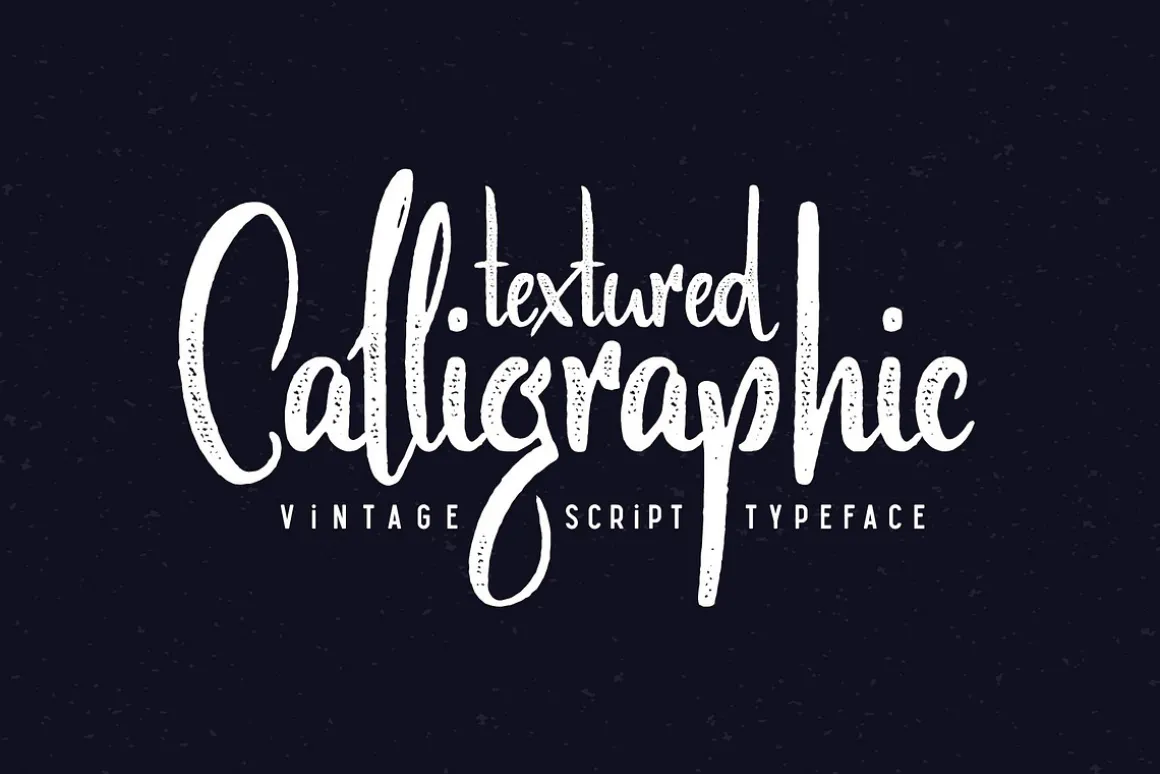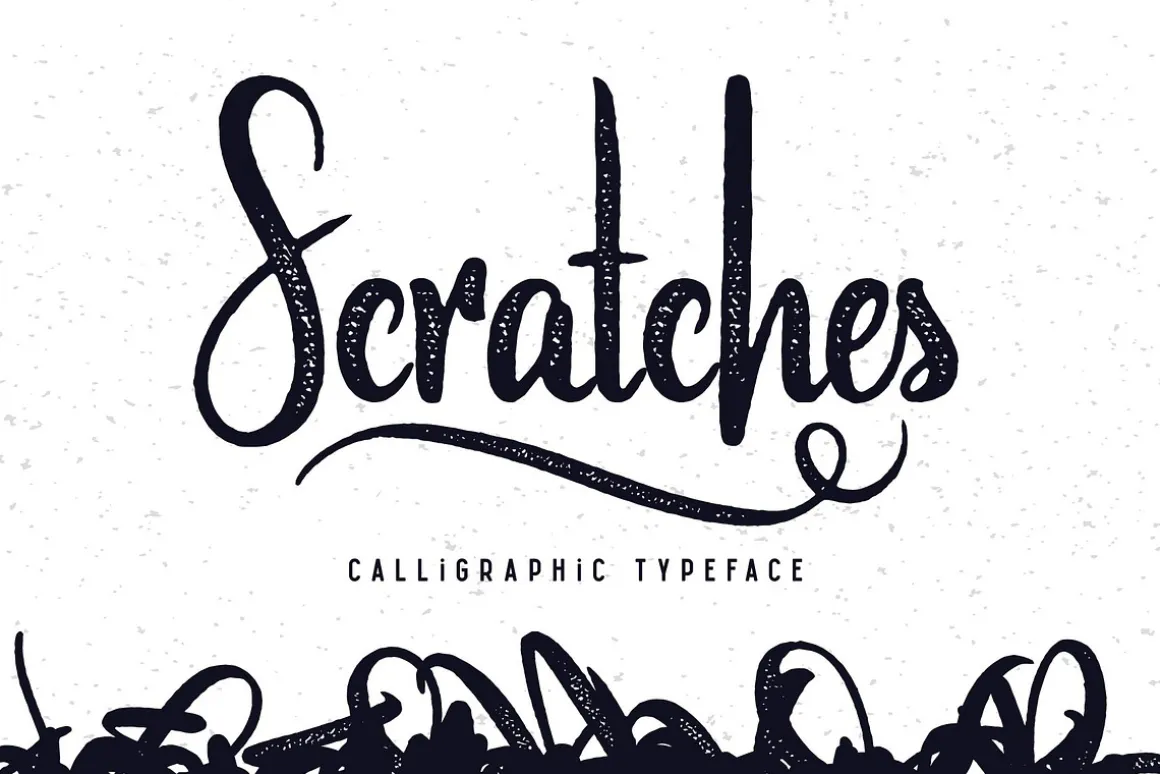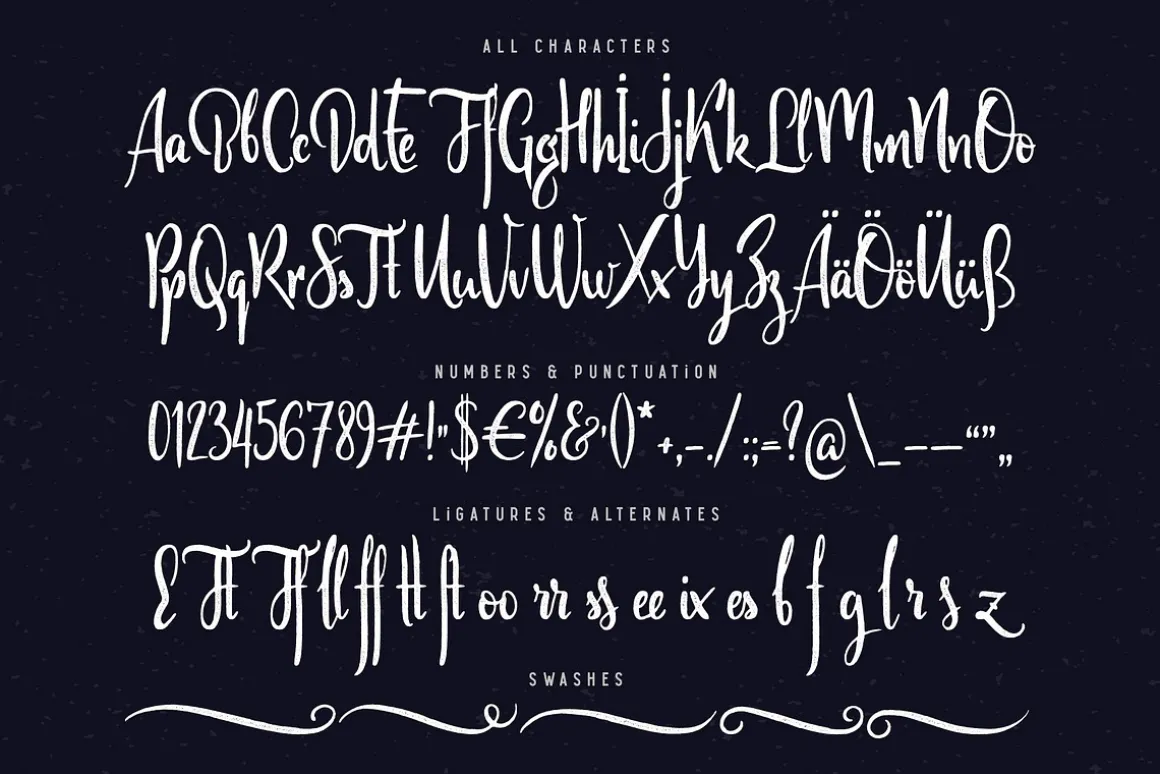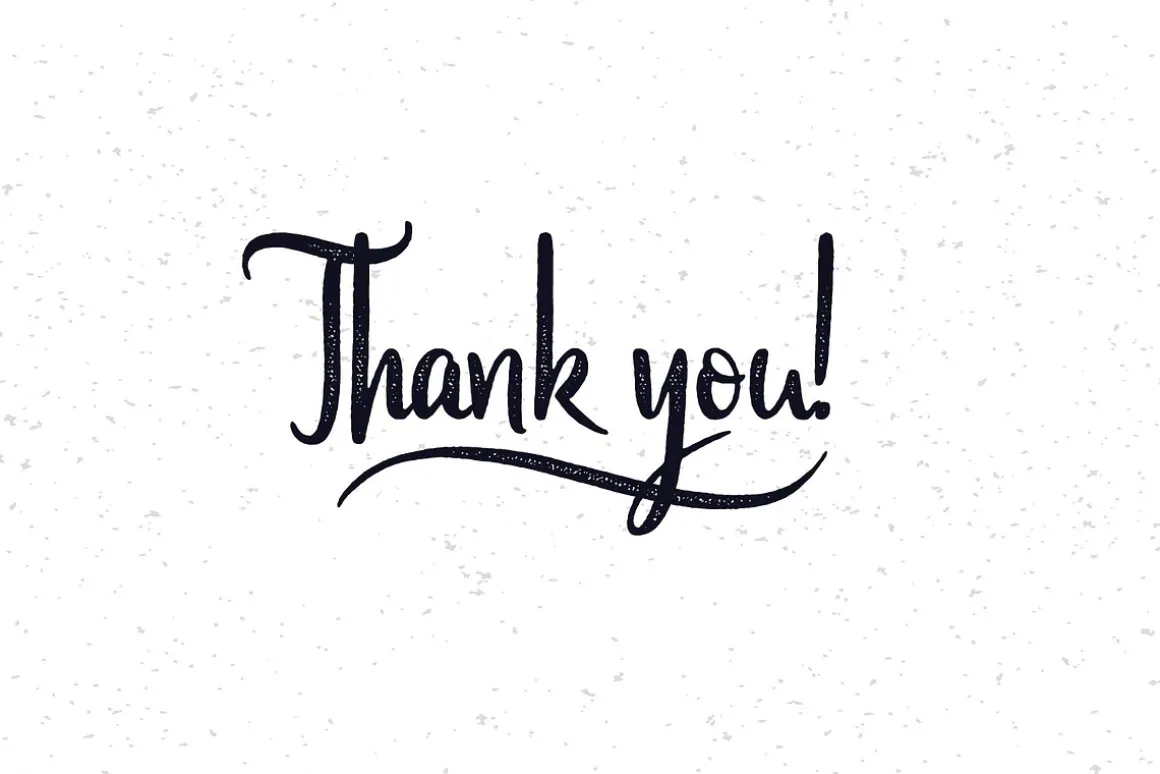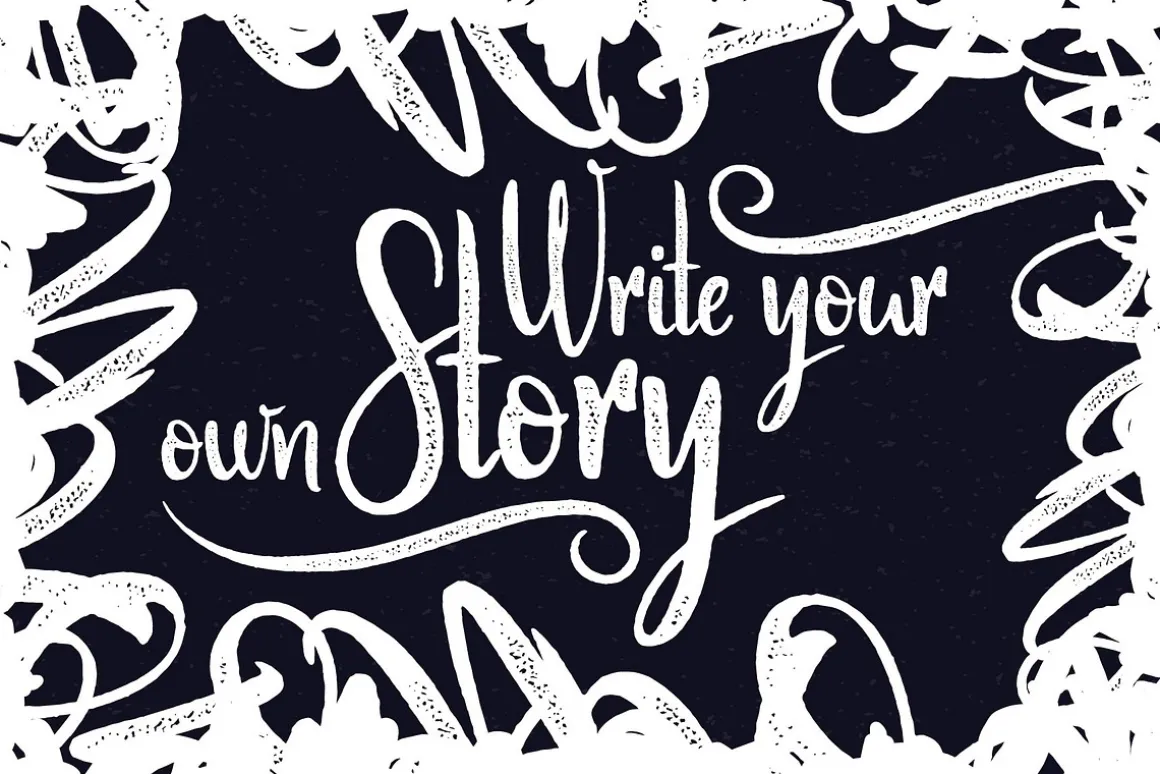
Hello! Presenting a textured calligraphic script font named “Scratches”. It has authentic handcrafted look and lots of additional characters & swashes.